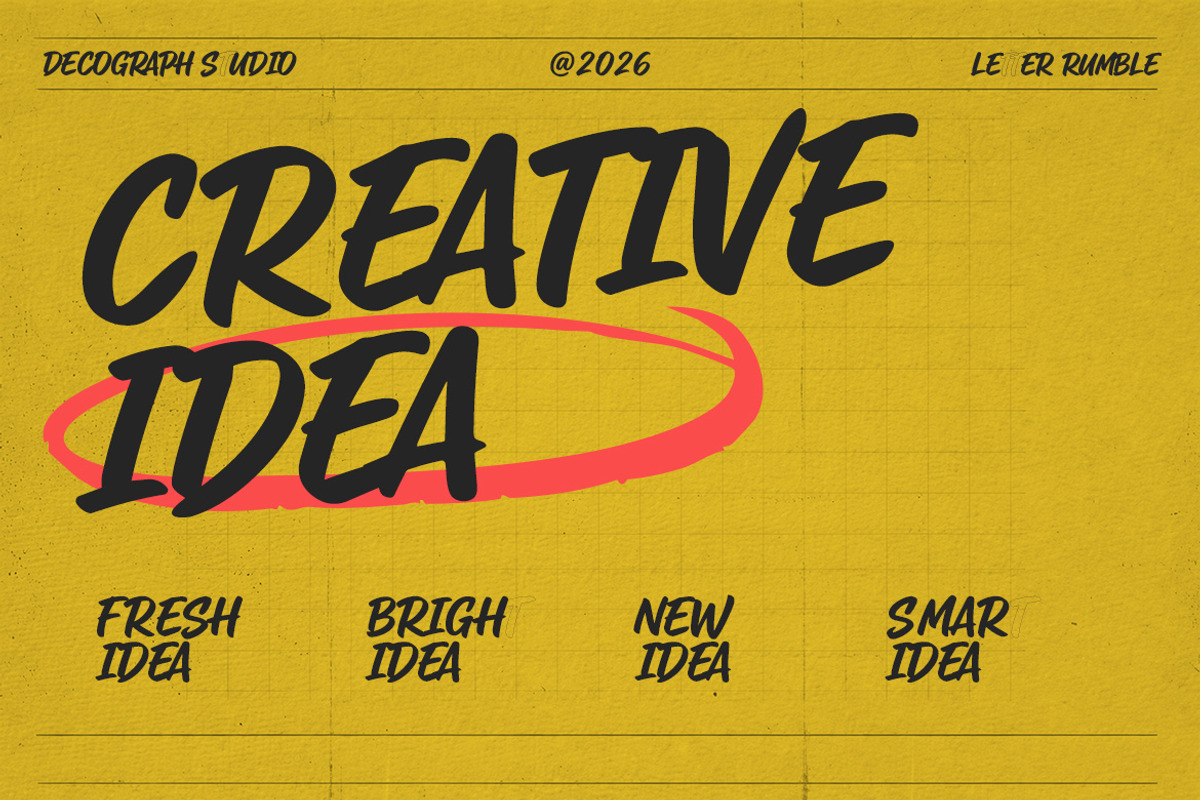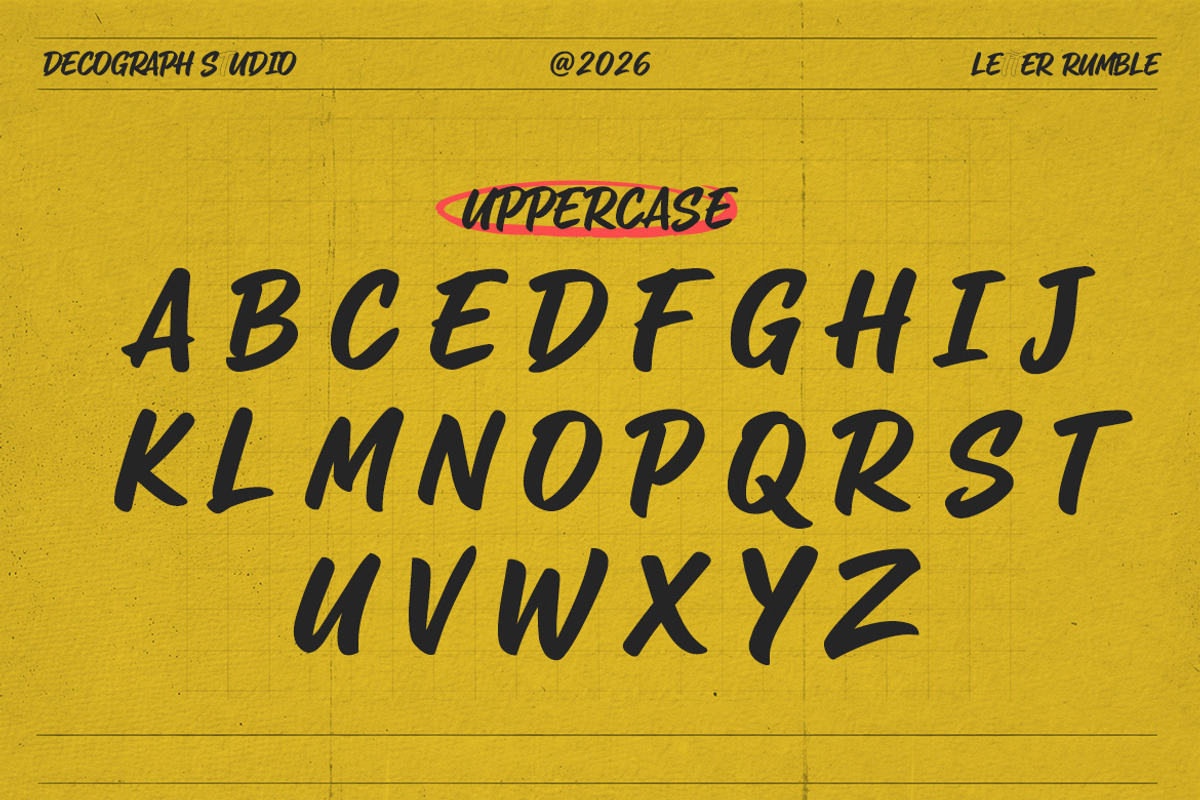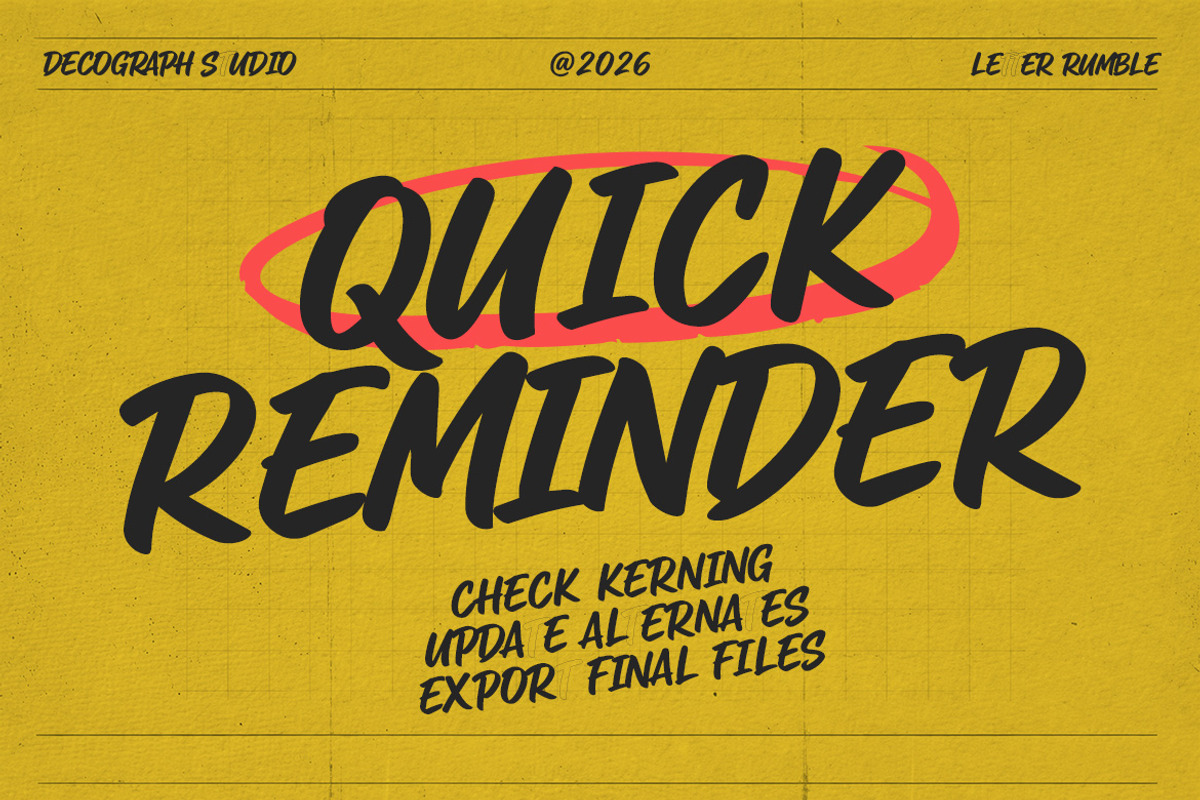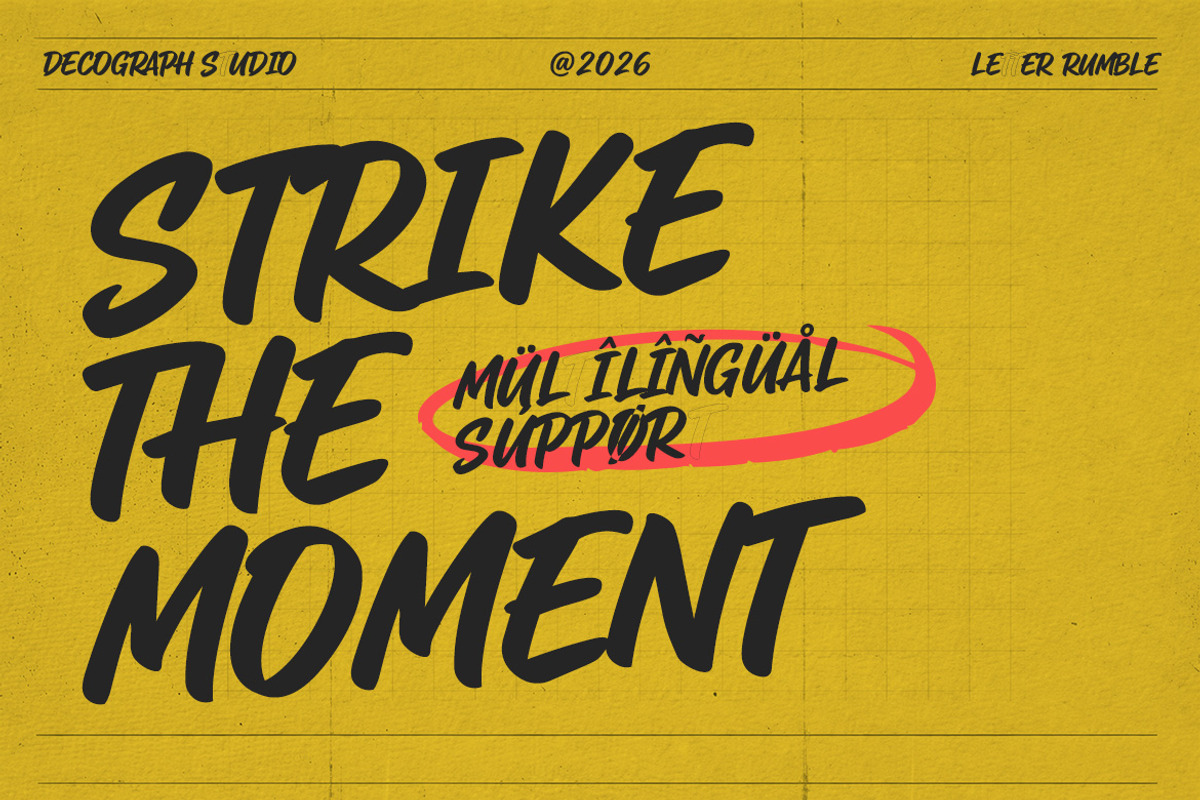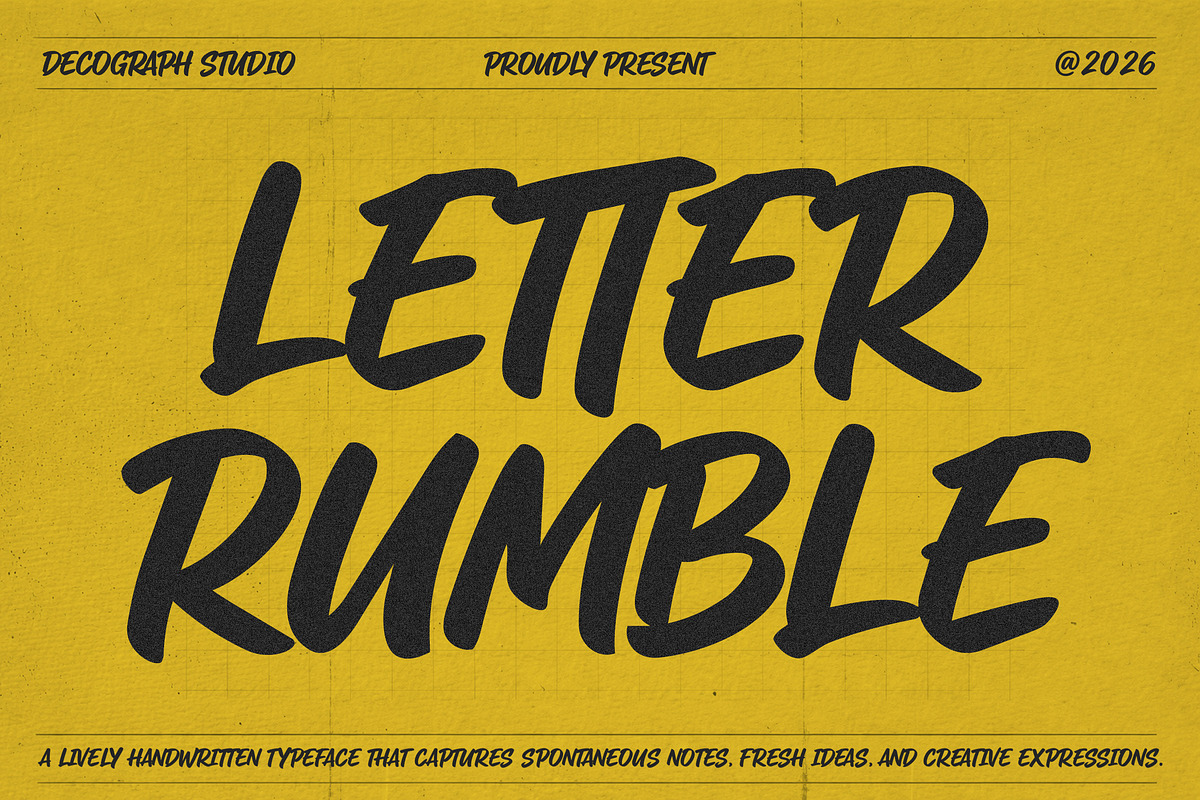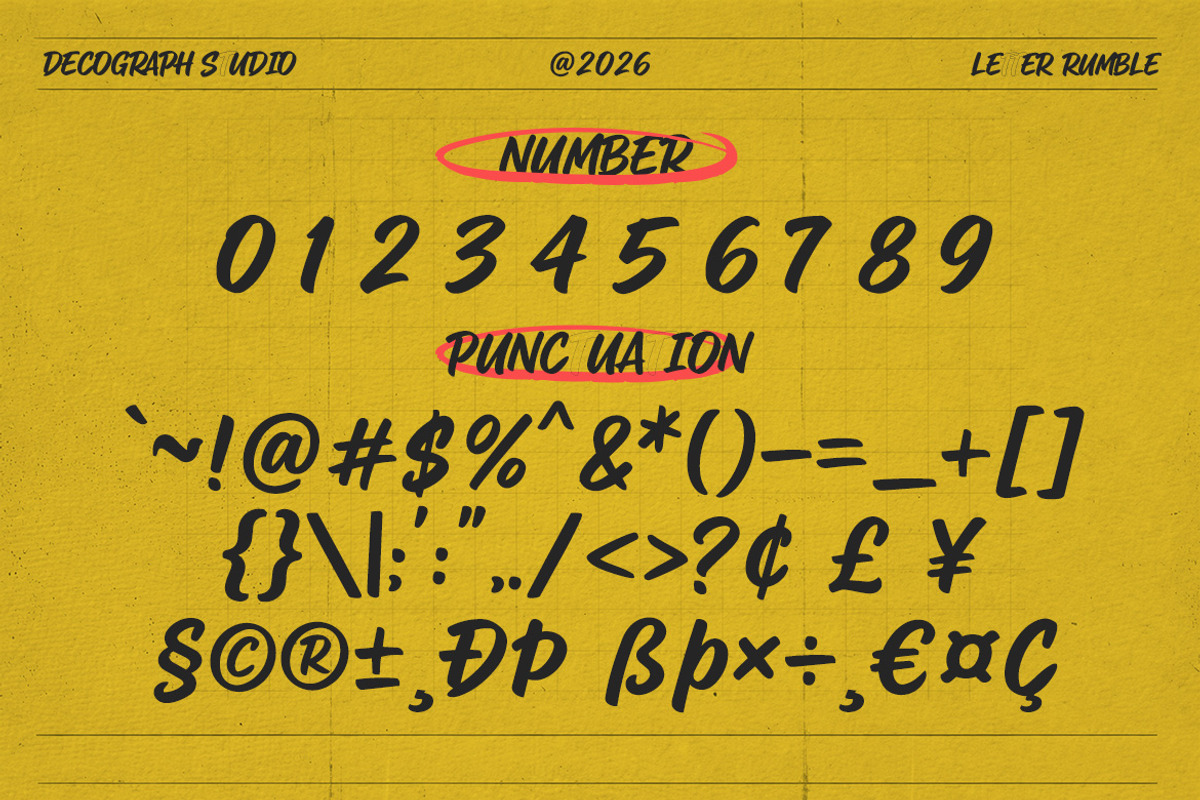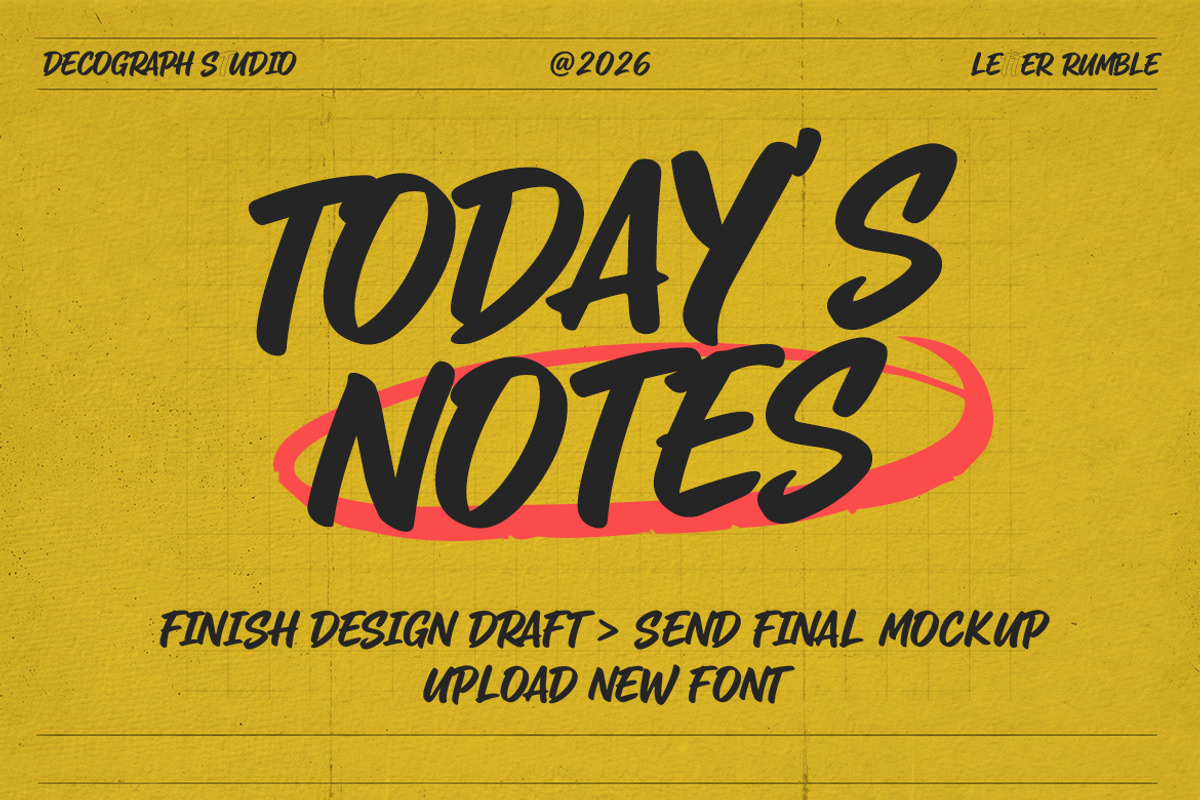
Letter Rumble – Marker Brush
Letter Rumble – Energetic Brush Script
Letter Rumble is a lively brush script font bursting with spontaneous energy and natural handwritten flow, featuring bold strokes, dynamic rhythm, and slightly rough edges that bring an authentic hand-drawn character to every word. Designed to capture movement and creativity, this typeface is perfect for expressive branding, eye-catching posters, social media graphics, merchandise, and creative projects that need a bold, personal, and energetic touch—making your designs feel alive, fresh, and full of personality.